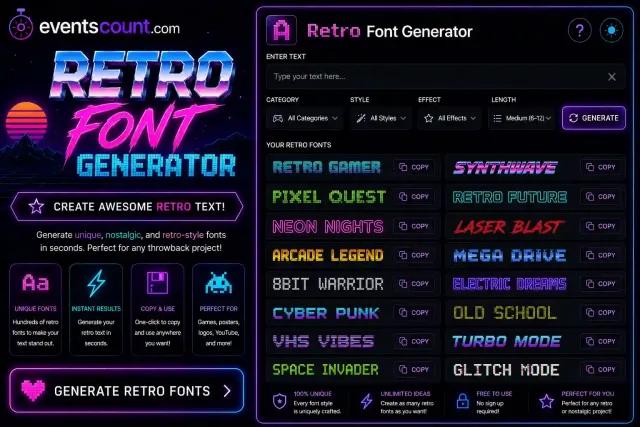
Retro Font Generator
Create retro text inspired by arcade screens, terminals, pixels, and vintage displays.
Retro Font Generator
Bring classic typography back to life with our Retro Font Generator. Whether you're creating social media content, gaming profiles, logos, posters, merchandise, or creative projects, retro fonts add a nostalgic style that instantly stands out.
Inspired by past decades, retro typography combines bold shapes, memorable lettering, and timeless design trends that remain popular today.
What Makes a Font Retro?
Retro fonts are inspired by design styles from previous decades. They often feature bold lettering, unique curves, vintage aesthetics, classic advertising influences, and distinctive typography trends from the 1950s through the 1990s.
Many retro fonts create a sense of nostalgia while still feeling fun, creative, and highly recognizable.
Retro Text Generator
Our Retro Text Generator transforms ordinary text into vintage-inspired styles that feel classic and memorable. These styles are commonly used for logos, apparel, gaming content, posters, branding, and social media graphics.
Retro text helps capture the atmosphere of past eras while remaining visually attractive in modern designs.
Vintage Font Generator
The Vintage Font Generator creates text inspired by traditional typography, antique signage, historic advertisements, and classic print design. Vintage fonts often feel elegant, authentic, and timeless.
These styles are perfect for creative branding, invitations, labels, and nostalgic content.
Retro Font Maker
Our Retro Font Maker allows you to create retro-inspired text in seconds. Simply enter your text and generate multiple vintage and nostalgic styles that can be copied and used online.
Vintage Text Creator
The Vintage Text Creator helps transform modern text into classic-looking typography. Whether you're designing a retro logo, creating social media content, or building a themed project, vintage text can add personality and visual character.
Vintage Text Generator
A Vintage Text Generator is ideal for users who want text inspired by old-school design trends. Vintage typography remains popular because it combines nostalgia with strong visual appeal.
Many creators use vintage text styles for branding, merchandise, and creative marketing materials.
Old School Font Generator
The Old School Font Generator creates text inspired by classic signs, arcade games, retro advertisements, and traditional graphic design. Old-school typography remains highly recognizable and often feels both nostalgic and playful.
Retro Lettering Generator
Our Retro Lettering Generator focuses on decorative text styles inspired by hand-drawn signs, vintage packaging, classic storefronts, and historic typography trends.
These styles are frequently used by designers and creators looking for a nostalgic visual identity.
Vintage Lettering Generator
The Vintage Lettering Generator produces elegant lettering styles that resemble classic print work and handcrafted typography. Vintage lettering works especially well for logos, branding, labels, and creative projects.
Retro Style Font Generator
The Retro Style Font Generator creates text inspired by multiple decades of design history. Whether you prefer 1950s diner aesthetics, 1970s typography, 1980s neon styles, or 1990s gaming culture, retro text remains highly versatile.
70s Font Generator
A 70s Font Generator creates typography inspired by the colorful and expressive design trends of the 1970s. These fonts often feature rounded shapes, bold curves, and playful visual styles.
80s Font Generator
The 80s Font Generator produces text inspired by arcade games, synthwave culture, neon lights, and iconic 1980s design trends. These styles remain popular in gaming and digital content creation.
90s Font Generator
A 90s Font Generator creates typography inspired by classic video games, early internet culture, television graphics, and nostalgic design trends from the 1990s.
Retro Gaming Font Generator
The Retro Gaming Font Generator is perfect for gamers, streamers, and content creators who want text inspired by classic gaming systems and pixel-art aesthetics.
Retro gaming typography works especially well for gaming channels, thumbnails, and online communities.
Classic Font Generator
Our Classic Font Generator creates timeless typography styles inspired by traditional design principles. These fonts balance readability, elegance, and historical influence.
Retro Typography Generator
The Retro Typography Generator helps users experiment with typography styles from different decades. Whether you're designing a logo, poster, website, or social media graphic, retro typography offers a distinctive visual identity.
Retro Font Examples
What is a Retro Gaming Font Generator?
A Retro Gaming Font Generator creates text inspired by classic video games, arcade machines, and pixel-art aesthetics.